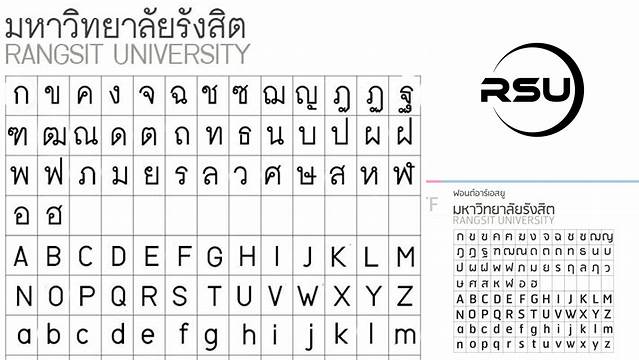
RSU Text Font: Free Download Guide & Usage Tips
What is the RSU Text Font?
First off, let's talk about what the RSU text font actually is. The RSU text font is a typeface known for its clean, legible, and modern design. It's often used in various applications, including graphic design, web design, and document creation. Its versatility makes it a popular choice for designers and content creators. The RSU text font typically includes a range of weights and styles, such as regular, bold, italic, and sometimes even condensed versions, offering flexibility in how you can use it. Understanding the characteristics of this font will help you appreciate its value and ensure you use it effectively in your projects. Knowing its features is key to maximizing its potential. Many designers appreciate its balanced appearance, which makes it suitable for both headings and body text. This balance ensures readability and visual appeal, regardless of the context. Moreover, the RSU text font often supports multiple languages, making it a valuable asset for international projects. Its wide character set and glyph options further enhance its usability, allowing for creative and precise typographic compositions. When choosing a font, the RSU text font stands out due to its modern aesthetic and practical functionality, catering to a broad spectrum of design needs. Its consistent design across different weights and styles helps maintain a cohesive look throughout your work, ensuring a professional and polished final product. Whether you are designing a website, creating marketing materials, or working on a document, the RSU text font provides the reliability and visual appeal you need to succeed.
Why Choose the RSU Text Font?
So, why should you even bother with the RSU text font? Well, there are several compelling reasons. Firstly, its readability is top-notch, making it perfect for body text and ensuring your audience can easily digest your content. Secondly, its modern and clean aesthetic can elevate the overall look and feel of your projects, giving them a professional edge. Thirdly, the RSU text font often comes with multiple weights and styles, providing you with versatility in your design choices. This adaptability means you can use it for headings, subheadings, and body text, all while maintaining a cohesive visual identity. Moreover, the RSU text font is designed to be visually appealing in both print and digital formats. This makes it an excellent choice for a wide range of applications, from websites and digital ads to brochures and reports. Its balanced letterforms and consistent spacing contribute to a pleasant reading experience, enhancing engagement and comprehension. Additionally, the RSU text font is often favored for its compatibility with various design software and operating systems. This ensures a smooth workflow, allowing you to focus on your creative process without worrying about technical issues. The font’s support for different character sets and languages further expands its usability, making it a valuable asset for global projects. By choosing the RSU text font, you are investing in a typeface that combines aesthetic appeal, functionality, and versatility, ultimately enhancing the quality and impact of your designs. Its modern look, readability, and adaptability make it a standout choice for any project requiring a professional and polished appearance.
Tips for Using RSU Text Font Effectively
Now that you've got the RSU text font installed, let's talk about how to use it effectively. Proper font usage can make a huge difference in the overall impact of your design. First, consider the context in which you're using the font. Is it for a website, a printed document, or a presentation? The RSU text font is versatile, but it's essential to tailor your approach to the specific medium. For web design, ensure the font is optimized for readability on screens. Use appropriate font sizes and line heights to enhance the user experience. In print, pay attention to kerning and tracking to ensure the text looks polished and professional. When using the RSU text font, think about hierarchy. Use different weights and styles to create a clear visual structure. For example, use the bold weight for headings, the regular weight for body text, and the italic style for emphasis. This helps guide the reader's eye and makes your content more engaging. Also, be mindful of color contrast. Ensure there is sufficient contrast between the text and the background to make the text easy to read. Dark text on a light background is generally the most accessible option. Experiment with different color combinations, but always prioritize readability. Another tip is to avoid using too many different fonts in a single design. Stick to a maximum of two or three fonts to maintain a cohesive and professional look. The RSU text font pairs well with many other fonts, so experiment to find complementary typefaces that enhance your design. Finally, always consider your target audience. Choose font styles that resonate with your audience and reflect the overall tone of your project. By following these tips, you can maximize the impact of the RSU text font and create visually appealing and effective designs.